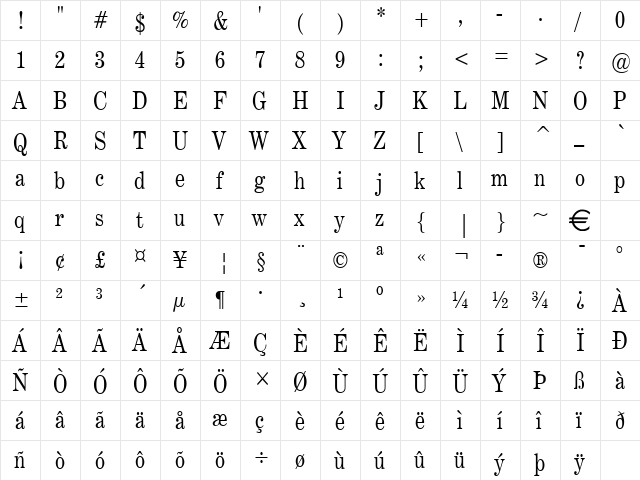
AnnualCondensed Normal
Design Context for AnnualCondensed Typeface
AnnualCondensed is a composed and adaptable typeface that performs quietly and consistently across a wide range of design contexts. The condensed width makes it efficient for tight spaces without sacrificing legibility.
Pro Tip: Pair AnnualCondensed with a font of contrasting weight or personality to build a more expressive typographic hierarchy.